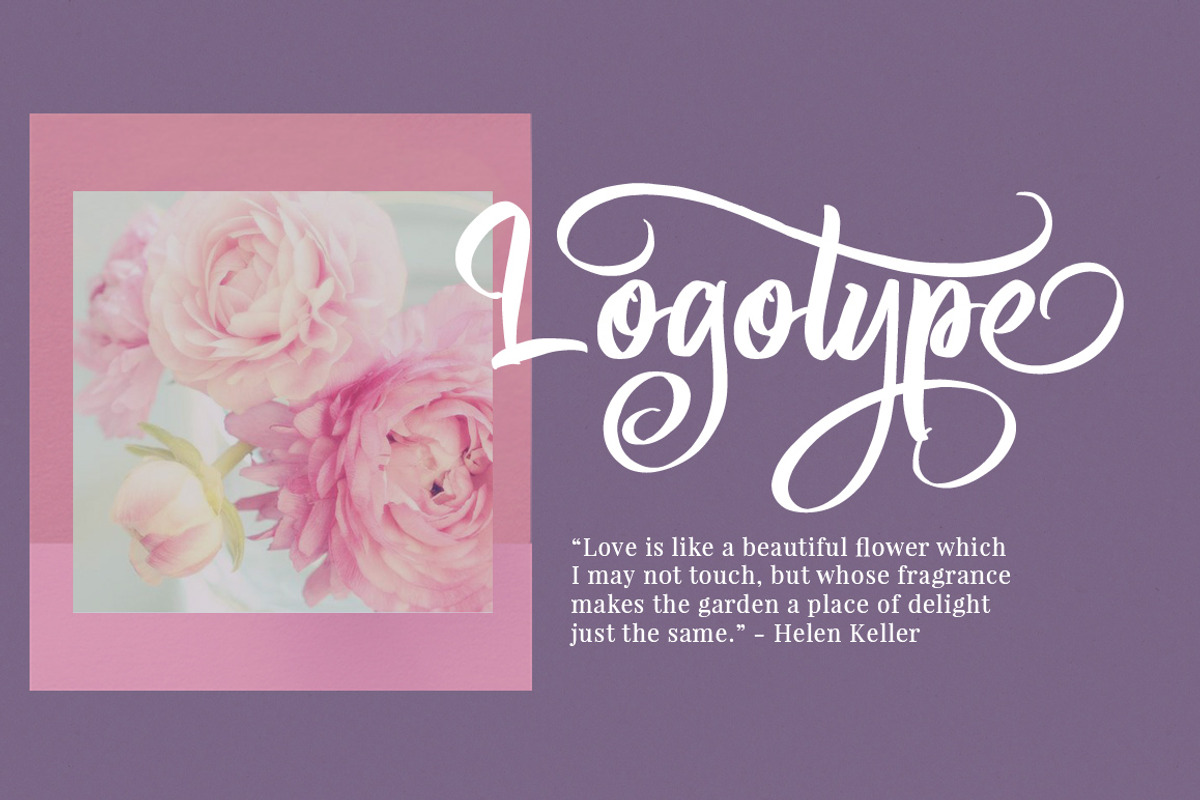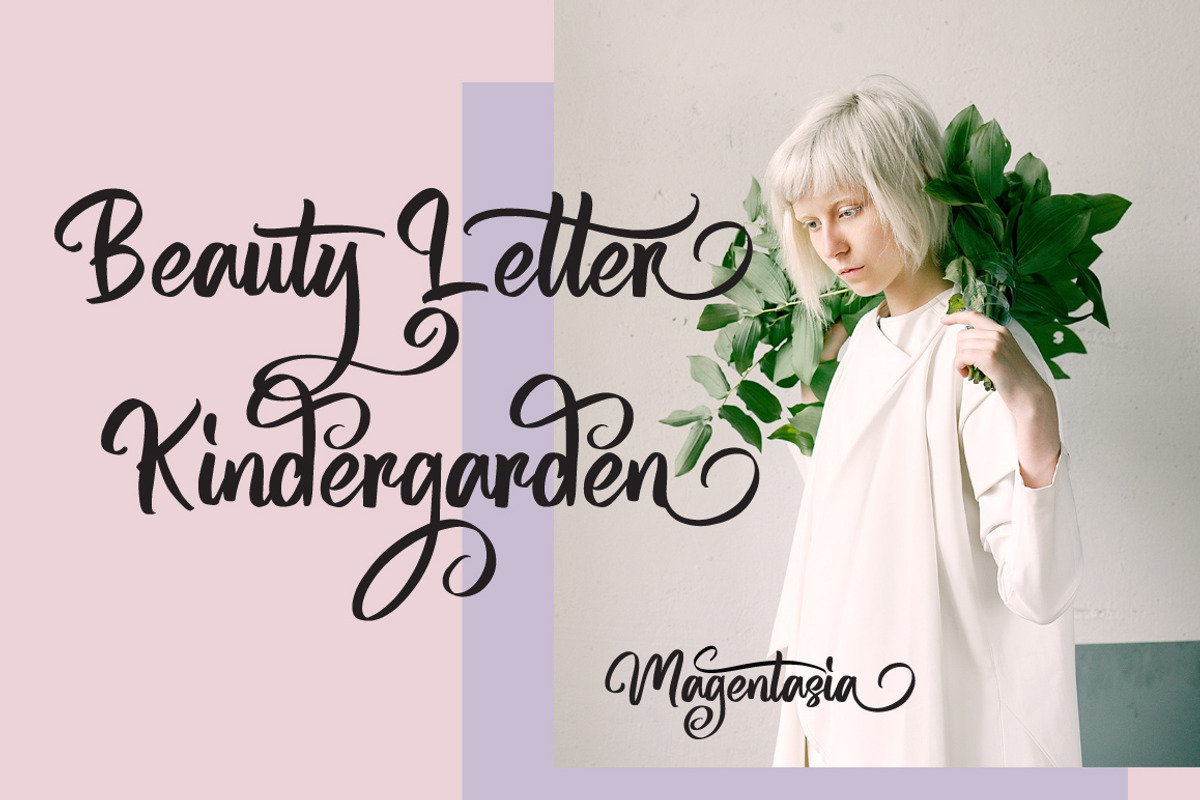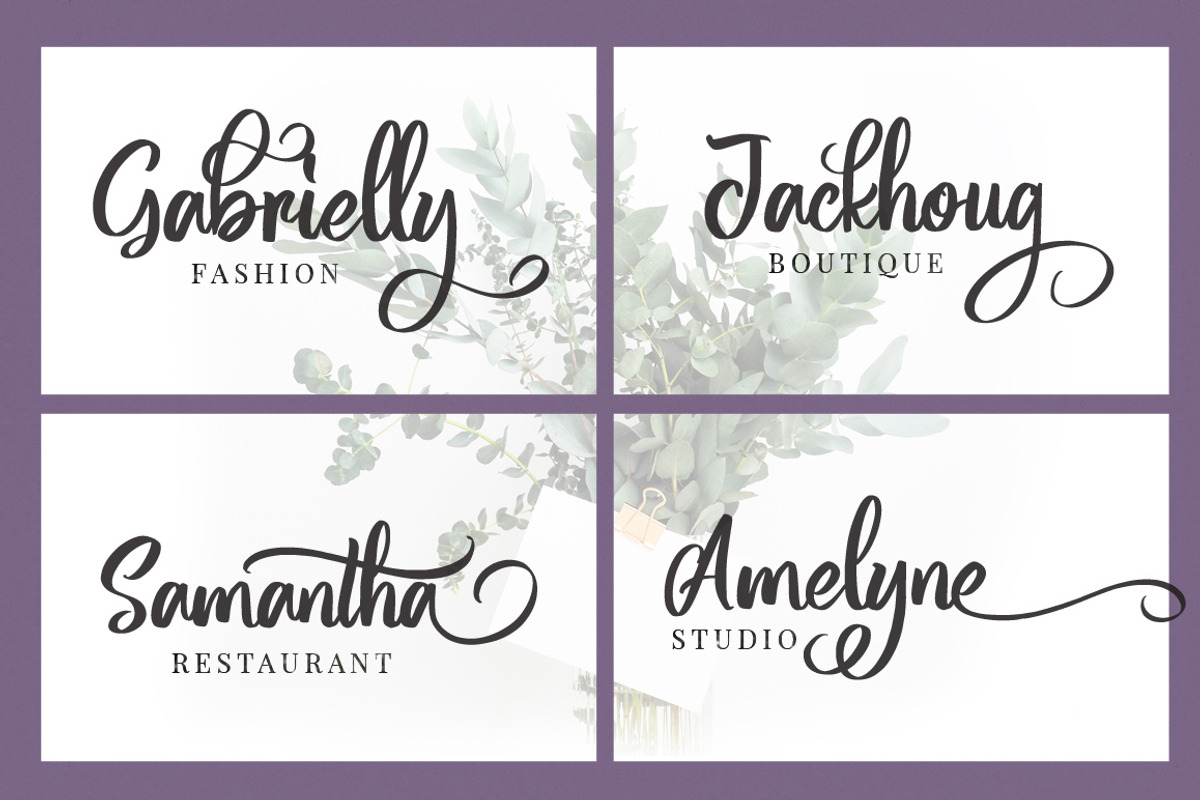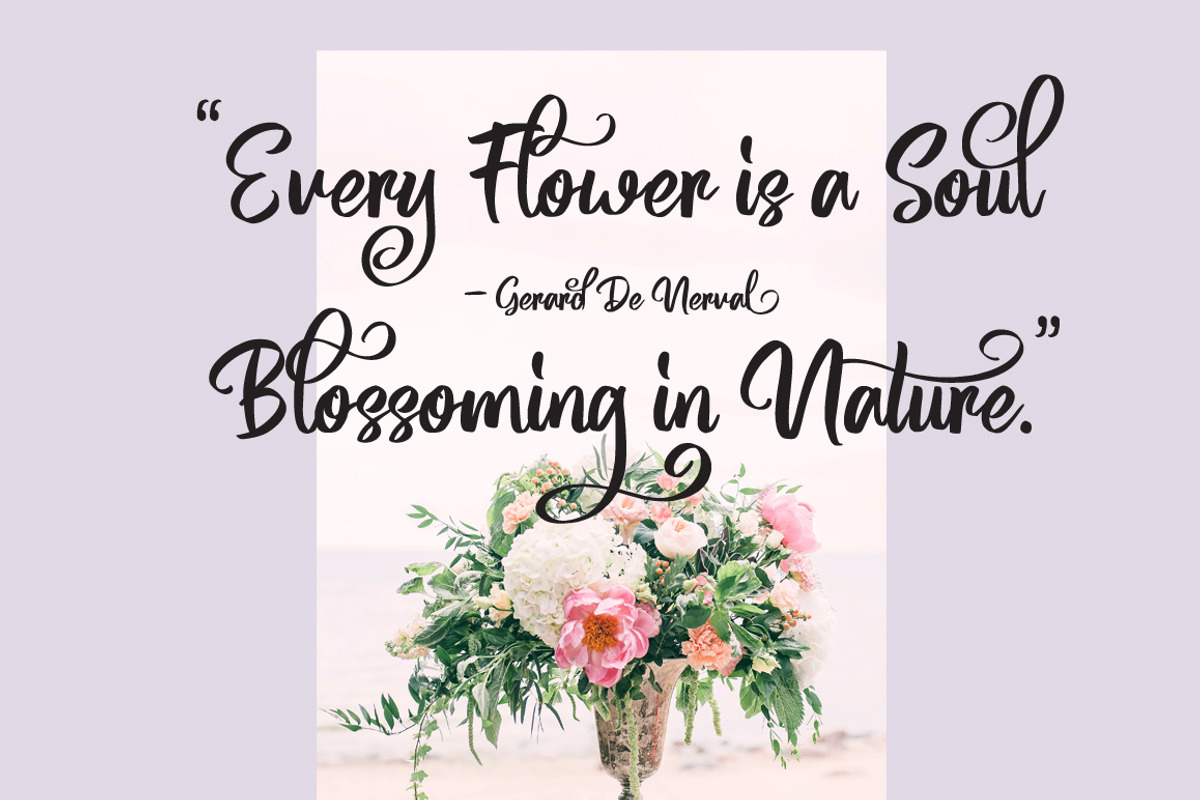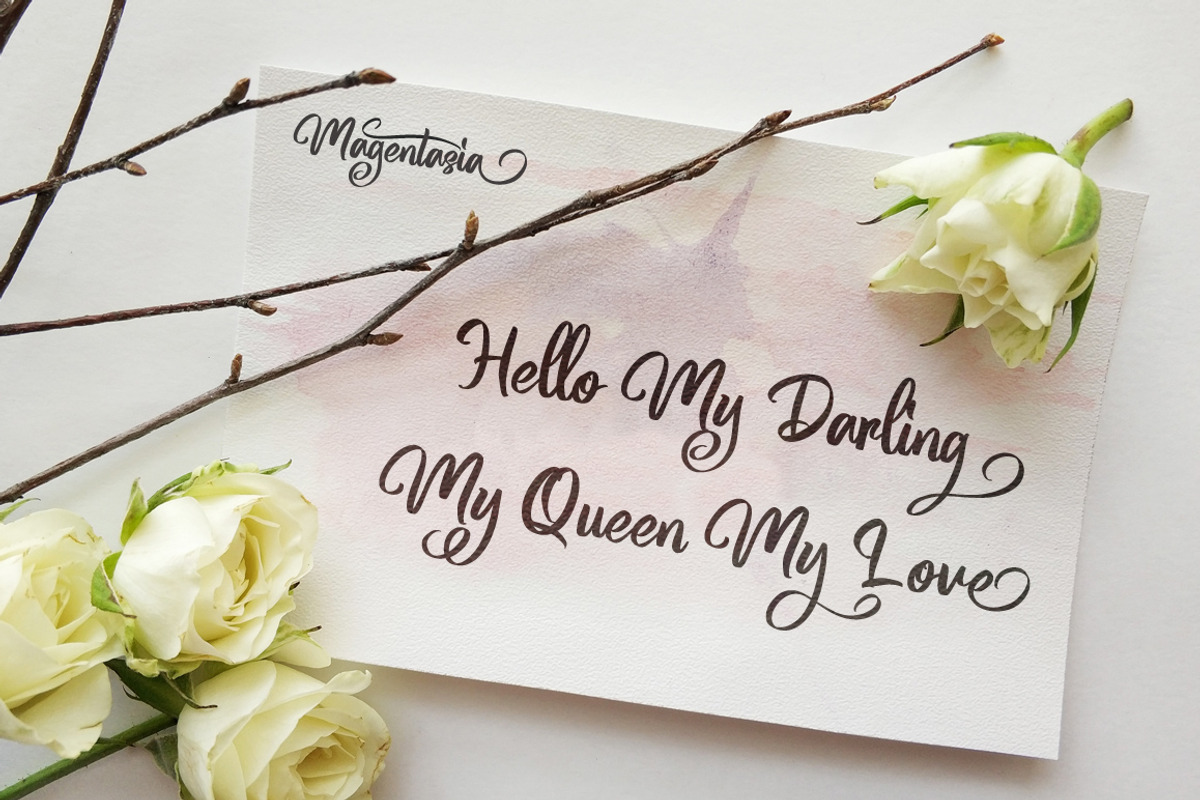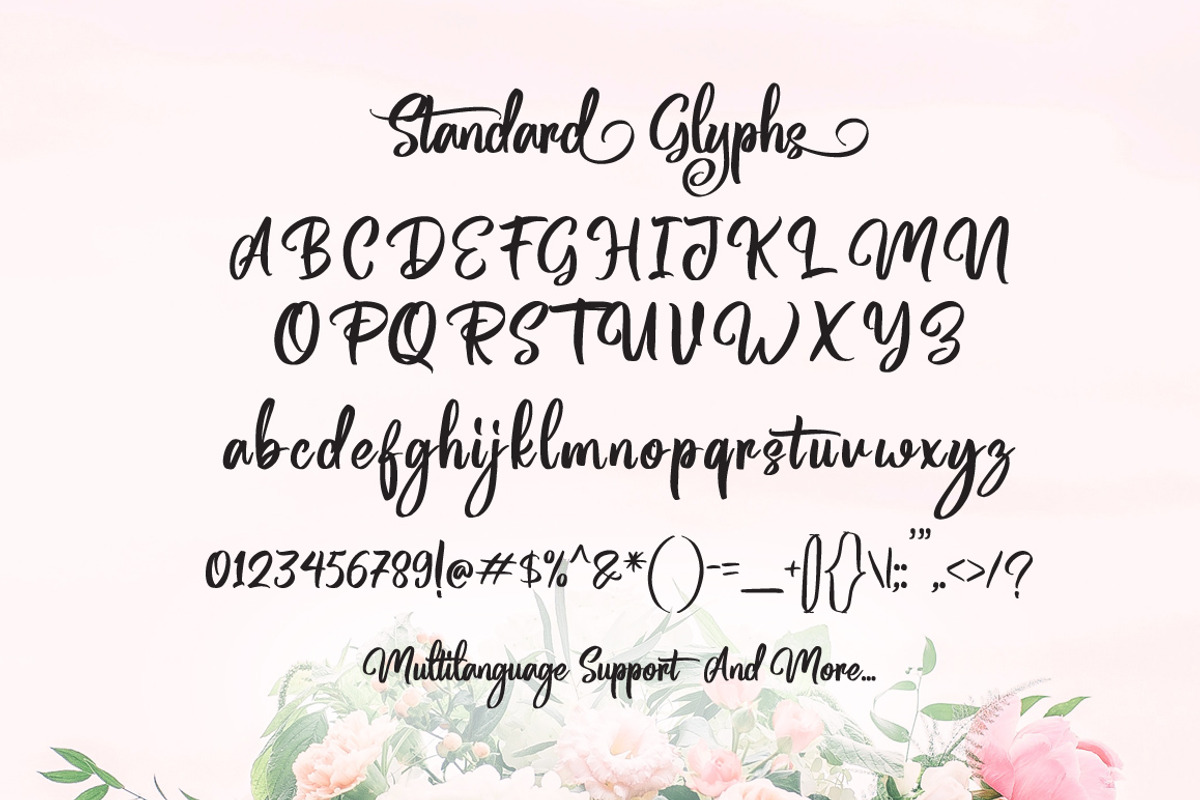
Magentasia - Handwritten Font
Magentasia is Brush Script Font with Handlettering Brush Style, with opentype feature include of the font. Suitable for design, element design, wedding, event, t-shirt, logo, badges, sticker, and awesome work, etc...
Open Type Features Fonts